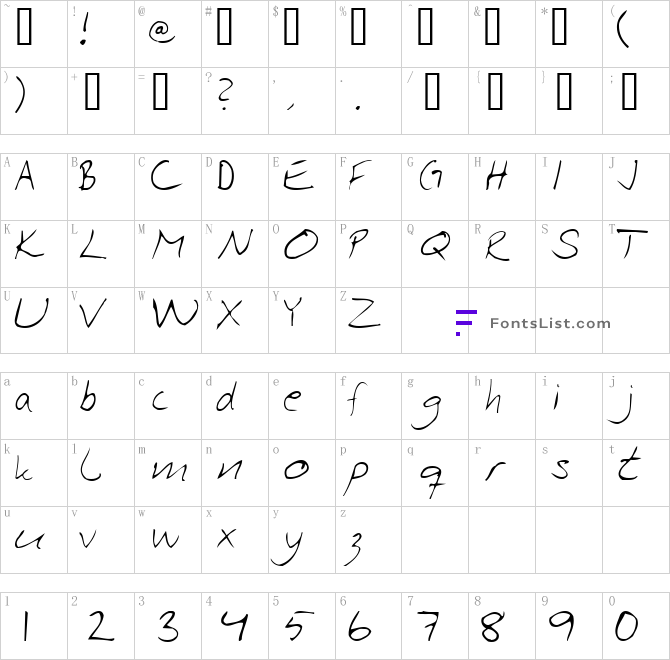
- Font Name:Asa Rocks
Asa-Rocks.ttf is a very beautiful artistic font, Asa-Rocks.ttf is widely used in the design and printing of various books and pictures,Asa-Rocks.ttf has a strong visual impact,Asa-Rocks.ttf is a commonly used font in newspapers, magazines and books, and is used in posters, e-commerce Poster design, store design, logo design, font design and other fields.Asa-Rocks.